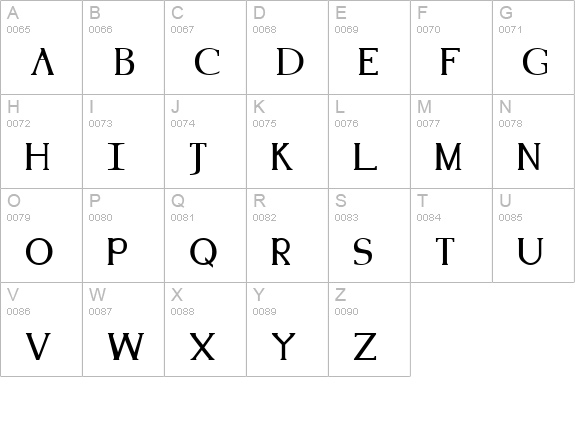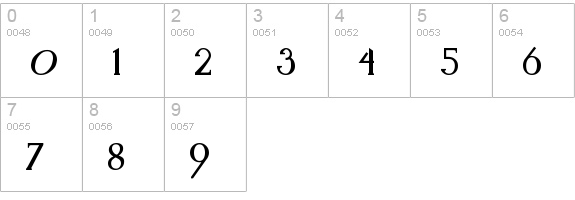
Kennon Plain Font Details
Introducing the exquisite Kennon Plain font, a stunning typeface that effortlessly combines elegance with simplicity. With its clean lines and timeless appeal, Kennon Plain is the perfect choice for those seeking a versatile font that can elevate any design project to new heights. This font boasts a classic, yet modern aesthetic that effortlessly captures attention and adds a touch of sophistication to any text. Whether you're designing a logo, creating a beautiful wedding invitation, or crafting an eye-catching headline, Kennon Plain is sure to make a lasting impression. What sets Kennon Plain apart is not just its impeccable design, but also its accessibility. This font is freely available to download at FontsMarket.com, making it an excellent choice for designers of all levels. Whether you're a seasoned professional or just starting your design journey, Kennon Plain offers endless possibilities and ensures that creativity knows no bounds. The versatility of Kennon Plain extends beyond its design, as it supports a wide range of languages, making it a truly global font. From English to Spanish, French to German, Kennon Plain allows you to effortlessly communicate your message to audiences around the world. With its wide array of weights and styles, Kennon Plain provides a comprehensive typographic solution for any project. From the bold and impactful to the delicate and refined, this font offers the perfect balance of versatility and elegance. So why wait? Let your creativity soar with Kennon Plain. Download this remarkable font for free at FontsMarket.com and unlock a world of design possibilities. Elevate your projects, captivate your audience, and make a statement with Kennon Plain – the font that combines beauty, accessibility, and freedom in one remarkable package.